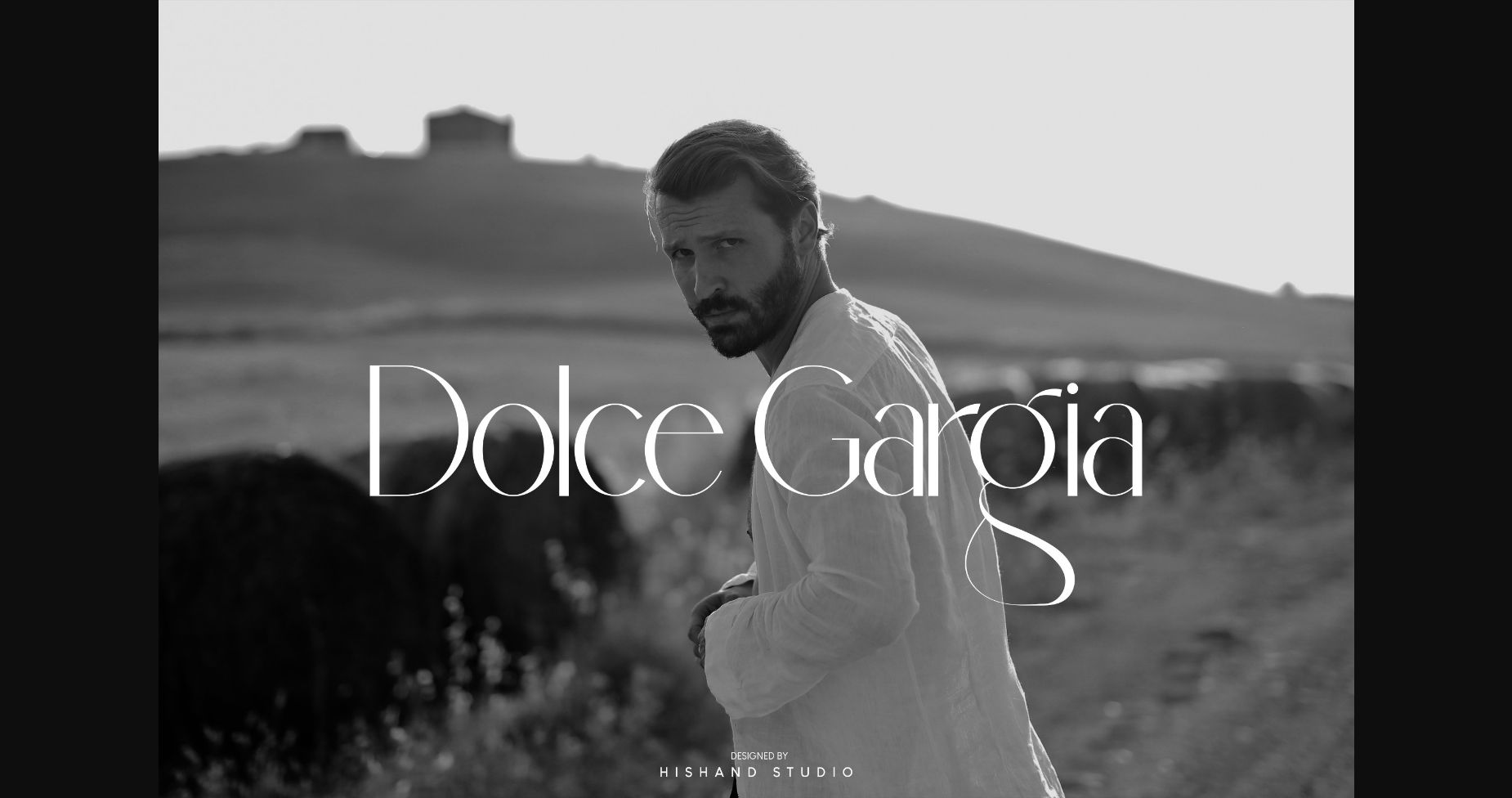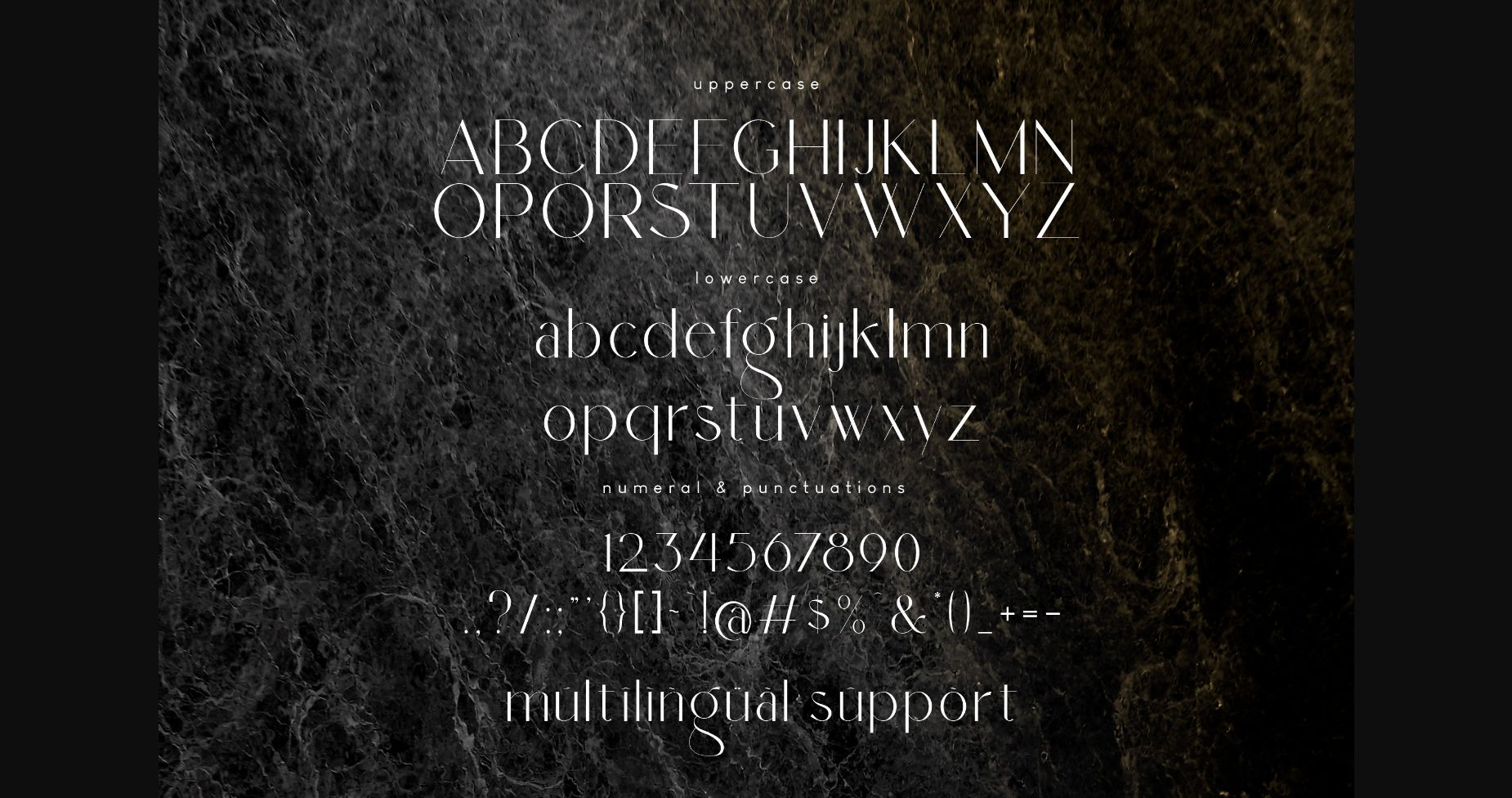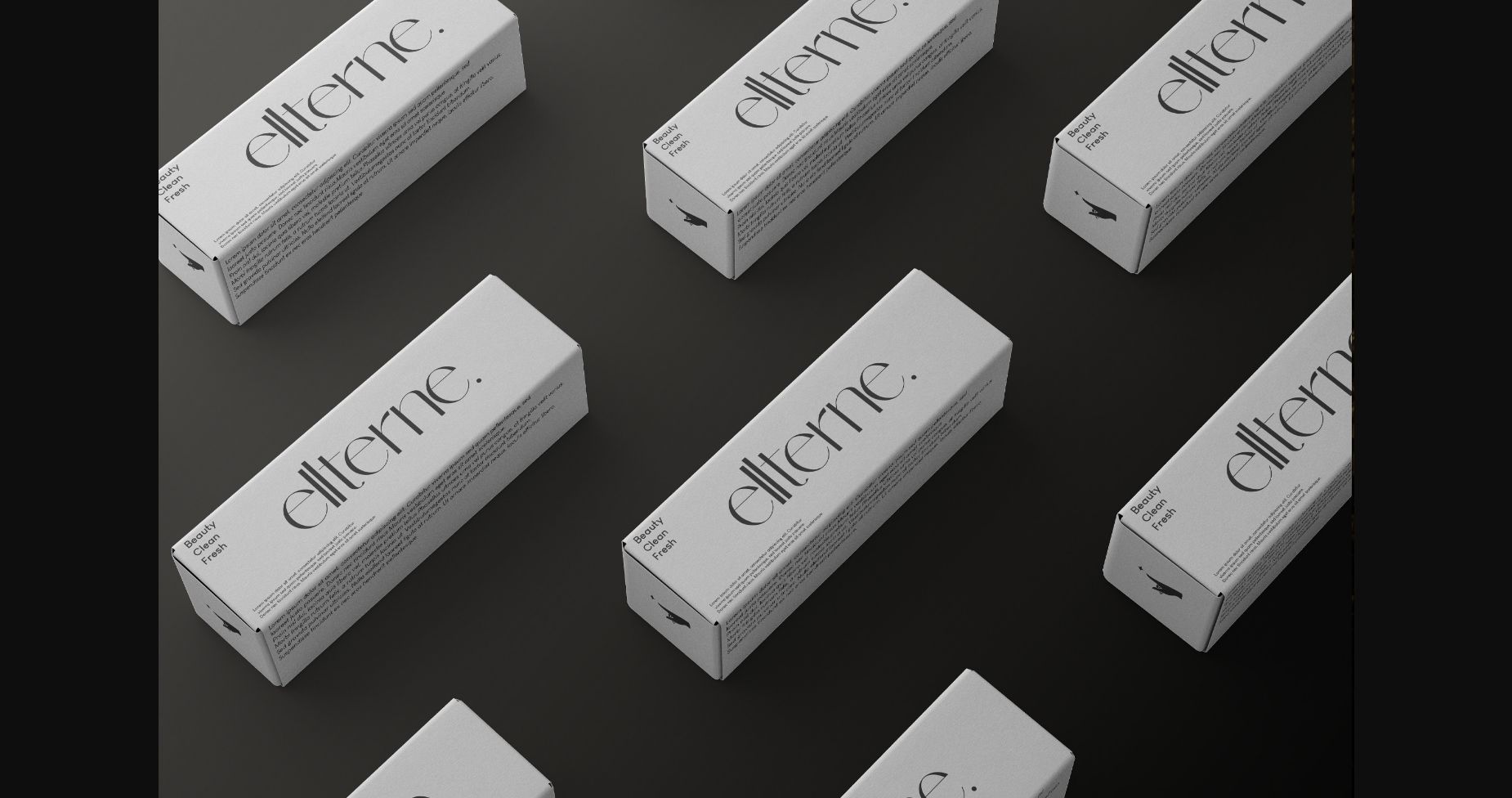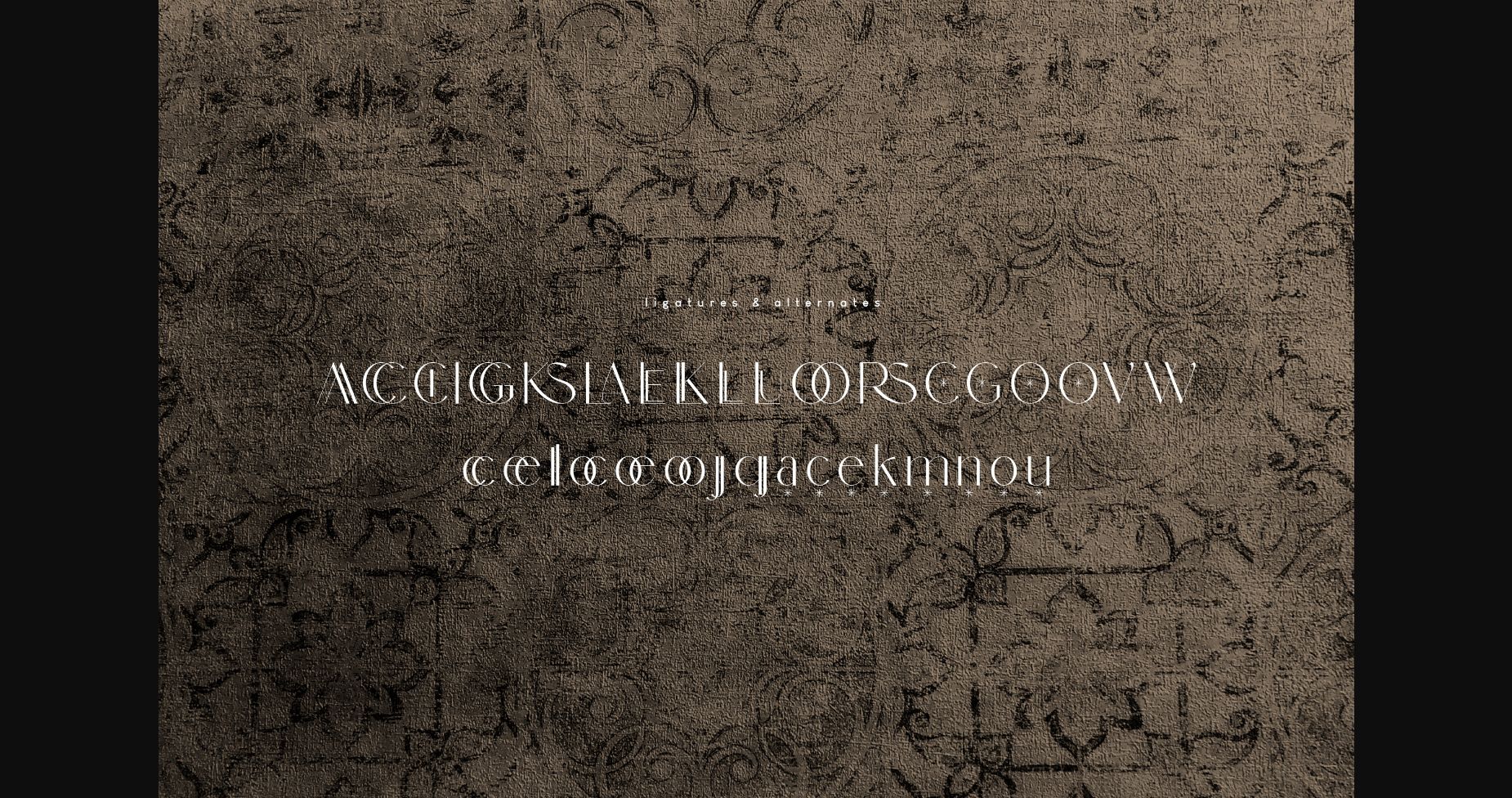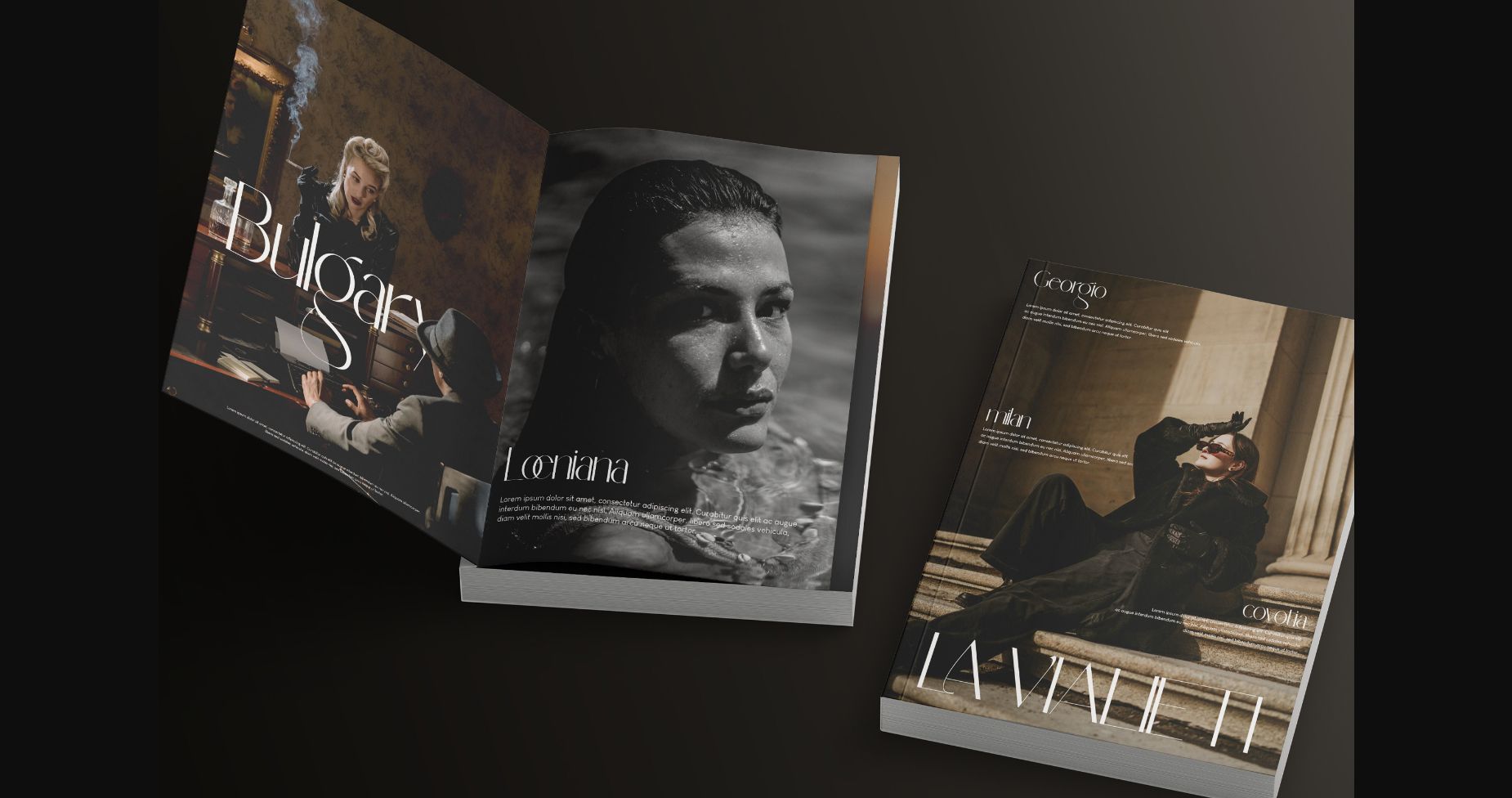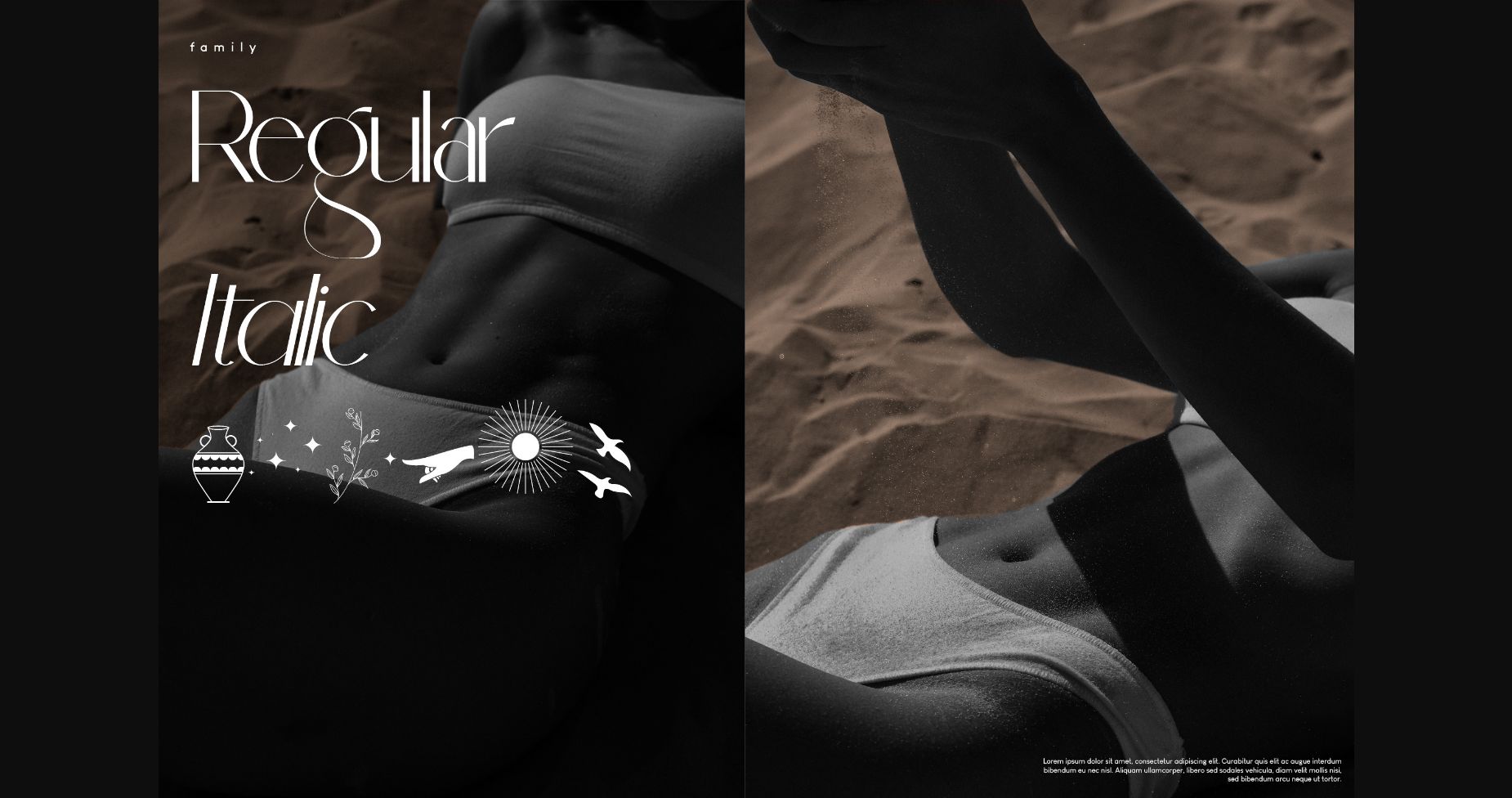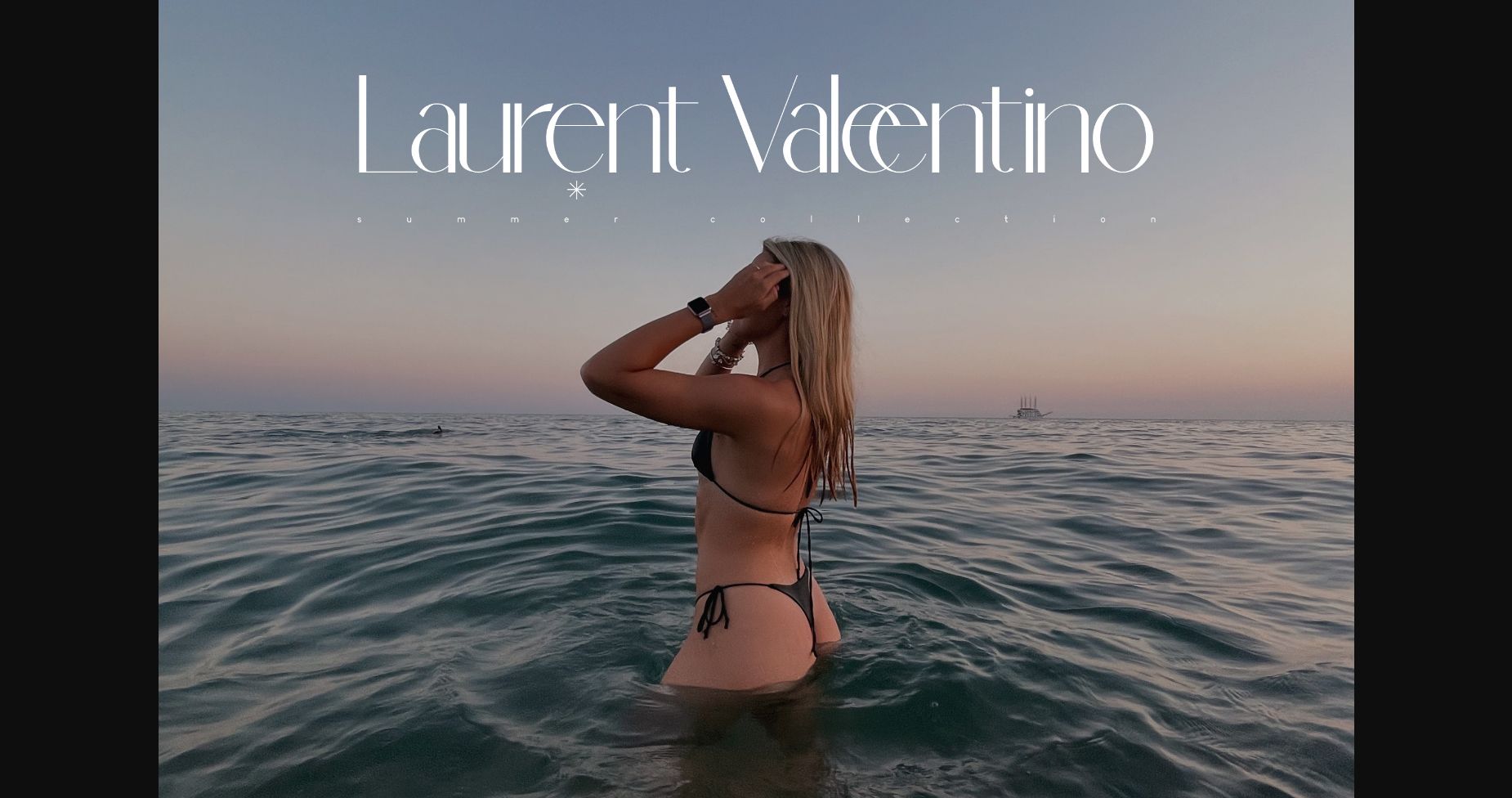
Dolce Gargia Font
About Dolce Gargia Font
Dolce Gargia is a classic and modern sans serif font with an aesthetic look. This font is PUA encoded which means you can access all of the glyphs and swashes with ease!